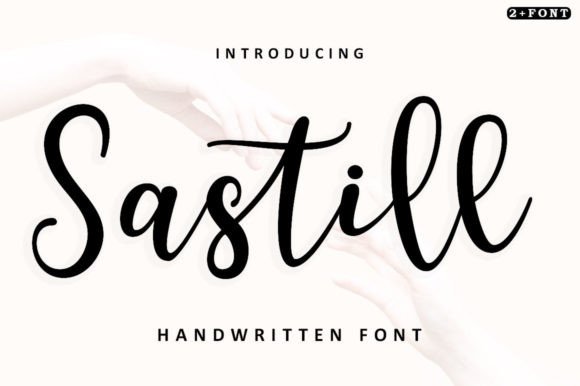
Prepare to be mesmerized by Sastill, a breathtaking handwritten font that exudes elegance and charm. Its graceful curves and delicate strokes will transform your words into enchanting masterpieces.
Unleash your creativity with Sastill, the ultimate choice for captivating invitation cards. Each letter dances across the page, carrying with it the promise of an unforgettable event. Whether it's an intimate gathering or a grand celebration, Sastill will add a touch of sophistication and style to your special occasion.
But Sastill's allure extends far beyond invitations. Its versatility shines in any design project, from personal branding to social media graphics. Its smooth, flowing lines will elevate your creations, adding a touch of artistry and charm.
With Sastill, you'll captivate your audience and leave a lasting impression. Its enchanting characters will weave a spell of beauty, drawing attention to your words.
Embrace the power of Sastill today and let your designs bloom with elegance and grace. Let your creativity soar and experience the transformative magic of this captivating handwritten font.